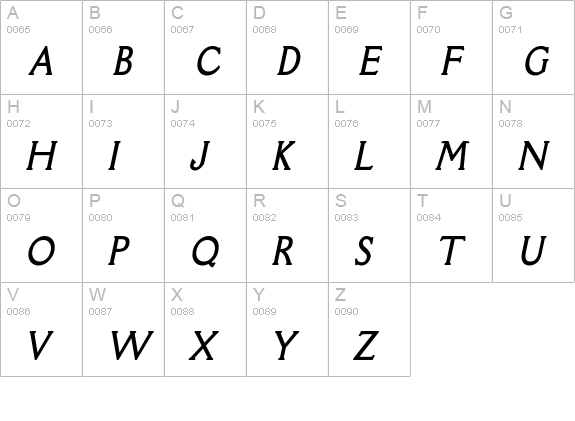
Rory Condensed BoldItalic is a distinctive, condensed-width variant in the Rory typeface family \xE2\x80\x94 well suited to design and typography projects.
Rory Condensed BoldItalic font is a visually striking and versatile typeface that exudes modernity and sophistication. Its bold yet elegant design makes it perfect for a wide range of projects, from branding to editorial design. The italicized style adds a touch of flair and dynamism to any text, making it stand out and capture attention effortlessly. This premium font is available for free download exclusively at FontsMarket.com. Whether you're working on a logo, website, poster, or any other creative project, Rory Condensed BoldItalic font will elevate your design and give it a bold and distinctive look. Don't miss out on this opportunity to enhance your typography collection with this stunning typeface. Download it now and start creating impactful designs with ease.